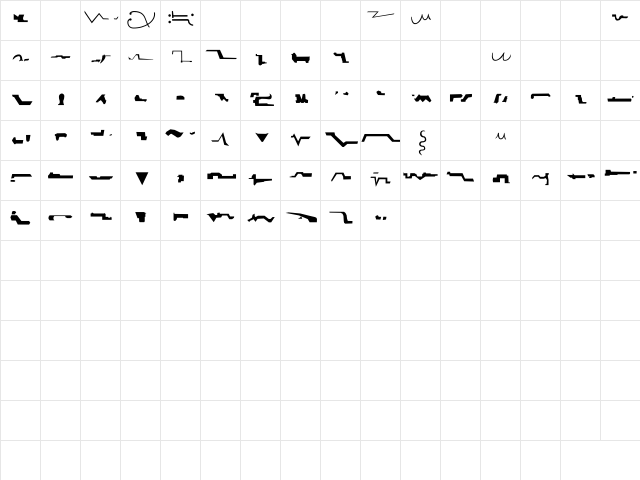
Krell Bold
Design Context for Krell Typeface
Krell is a composed and adaptable typeface that performs quietly and consistently across a wide range of design contexts. The heavy weight commands attention and anchors typographic hierarchies.